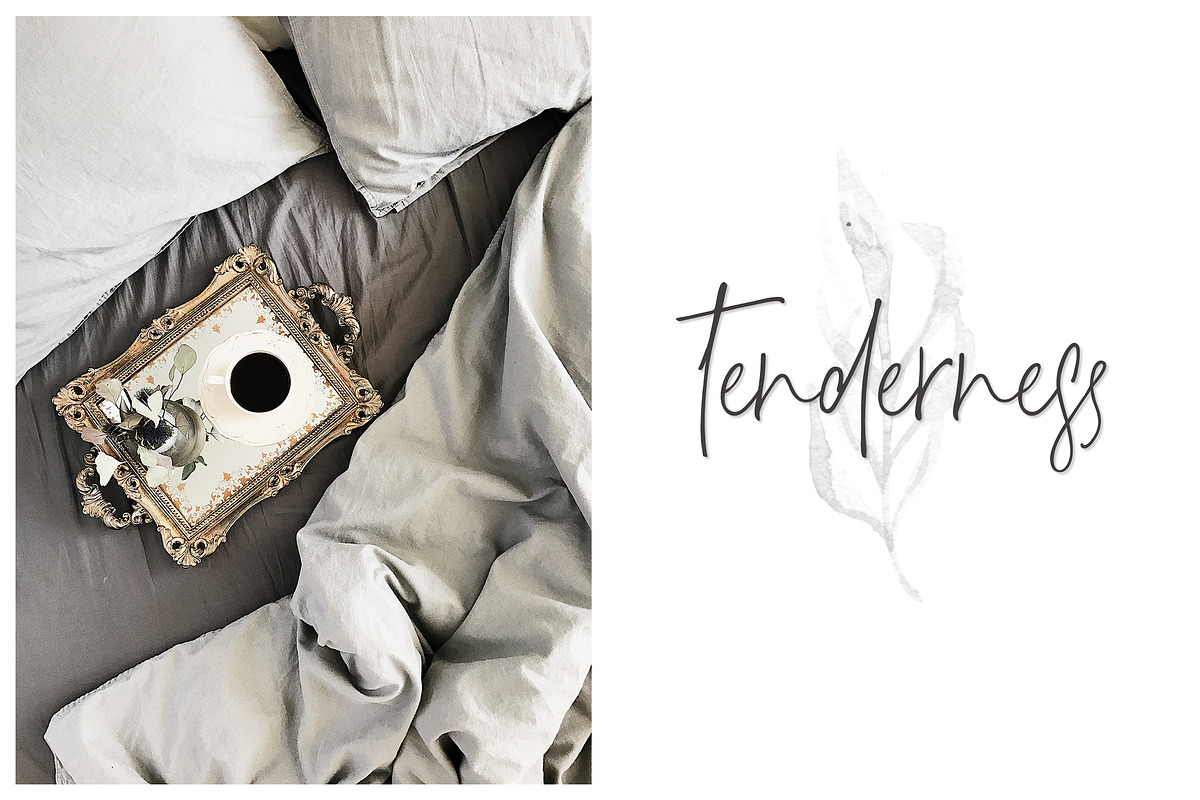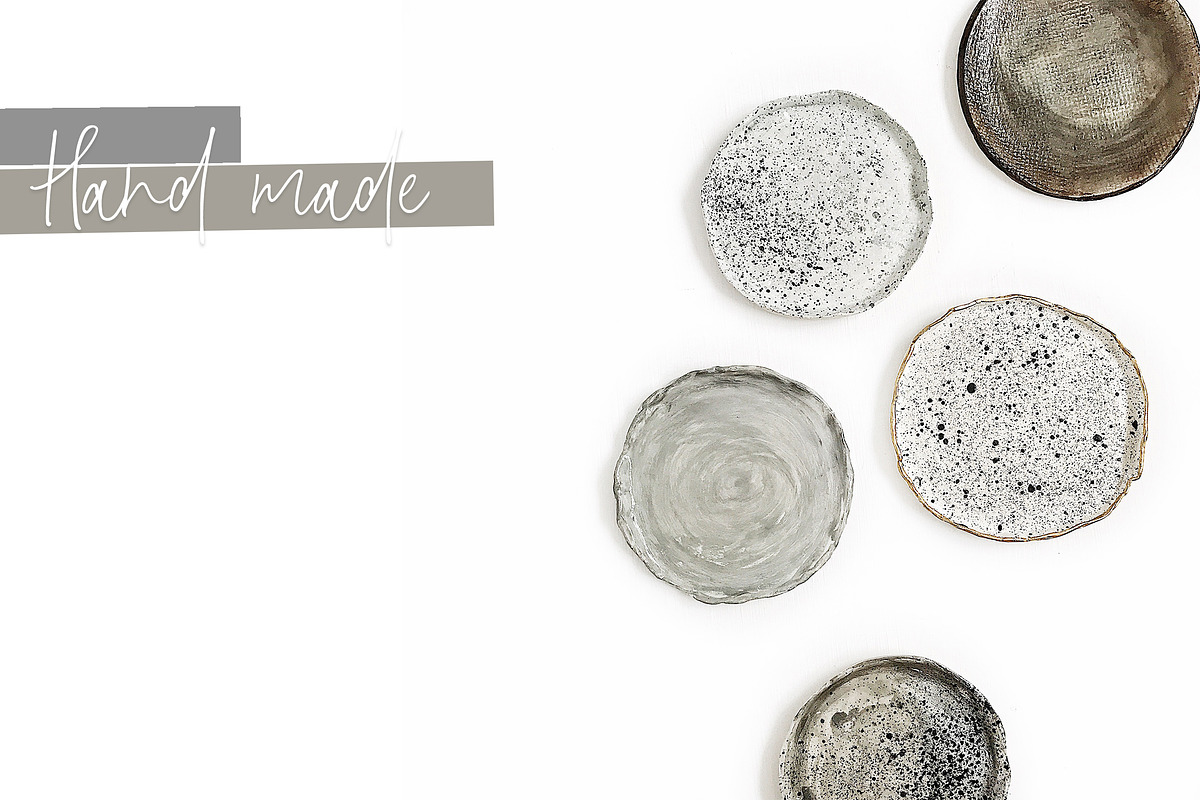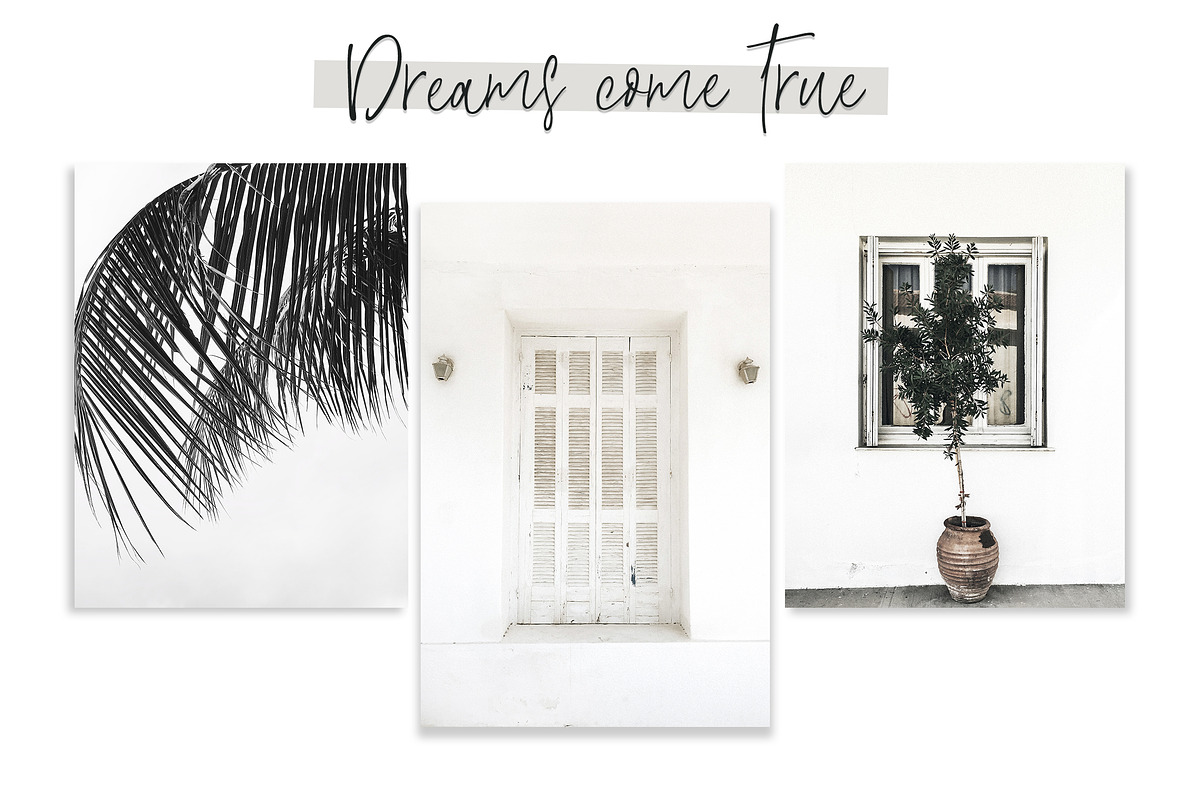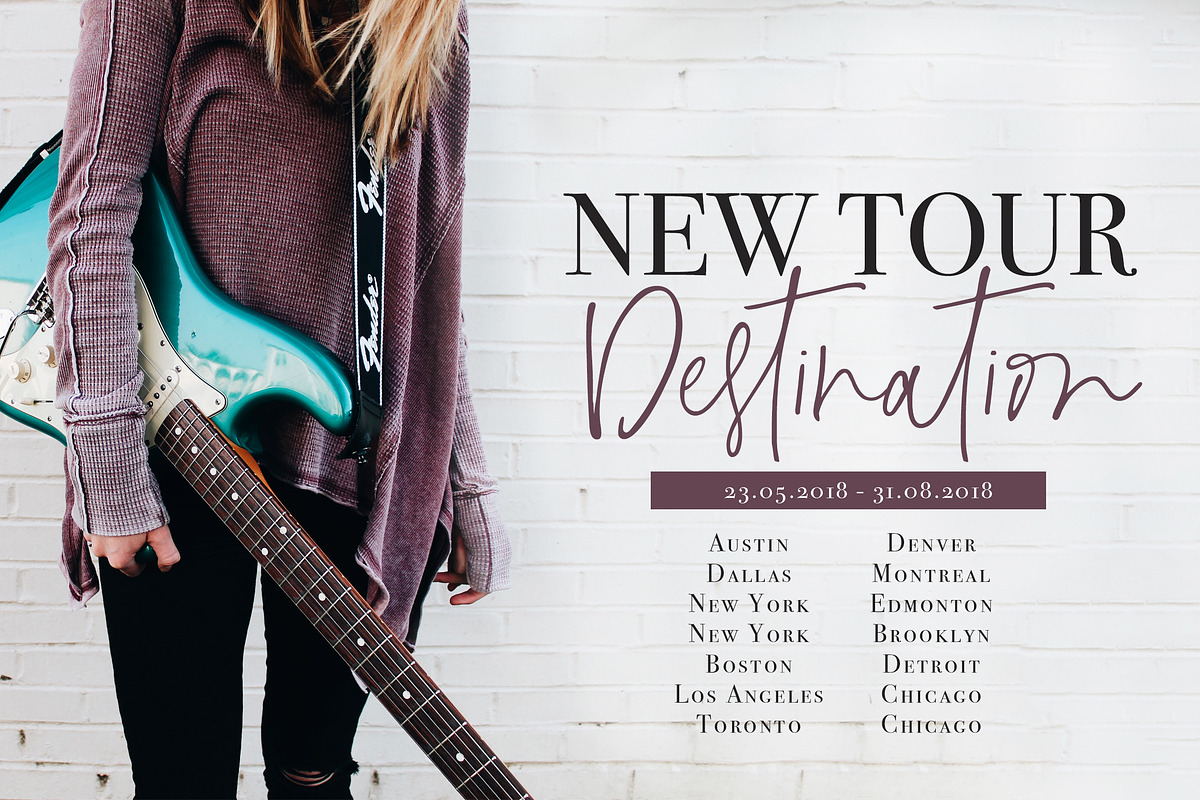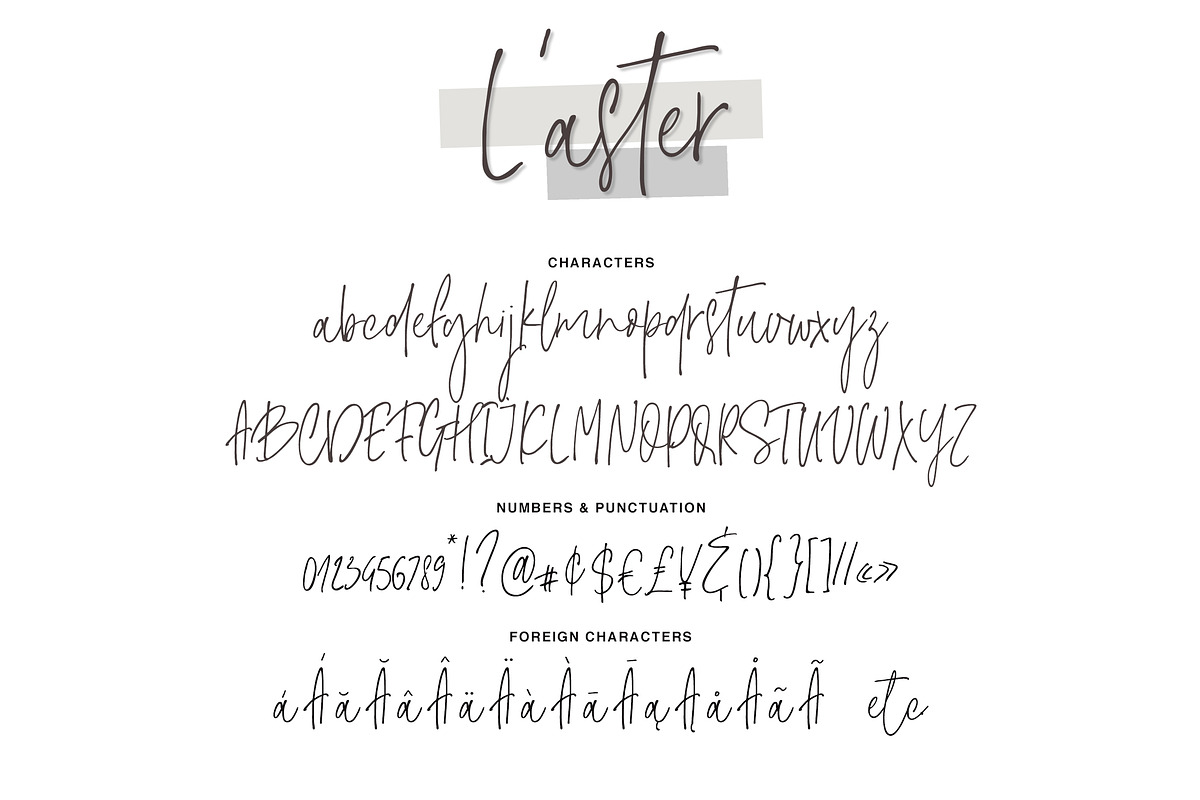
L'aster Font
Introducing you my NEW L'aster Font!
It's hand-drawn signature font with dancing baseline and elegant smooth lines that will look awesome on your branding materials, wedding invitations, headings, greeting cards and any other amazing projects you are working on.
L'aster font includes Upper and Lowercase Basic Characters, Standard and Discretionary Ligatures, Numbers and Punctuation. L'aster is also available for Western European, Central European and South Eastern European Languages. You can check your language typing characters in text box below.
- L'aster font includes Upper and Lowercase Basic Characters, Standard and Discretionary Ligatures, Numbers and Punctuation.
Why L'aster Font is worth a look
L'aster Font by Calamar Studio fits naturally into Branding, posters, packaging, typography.